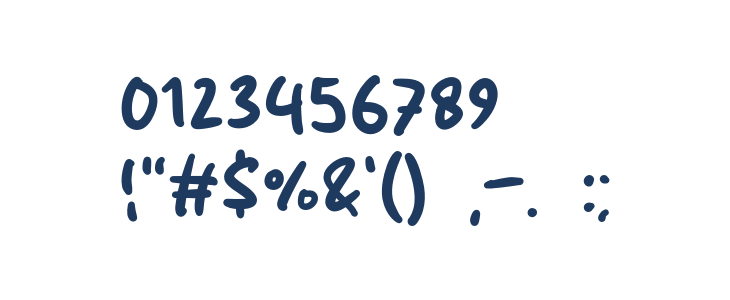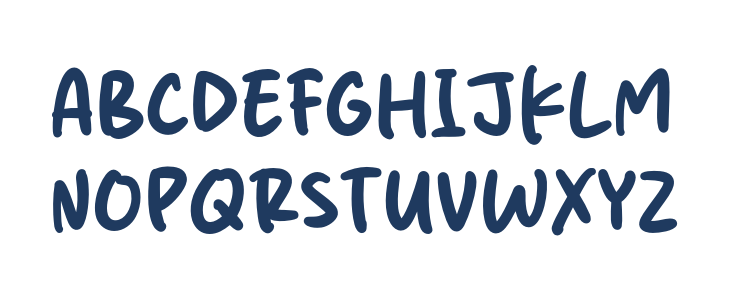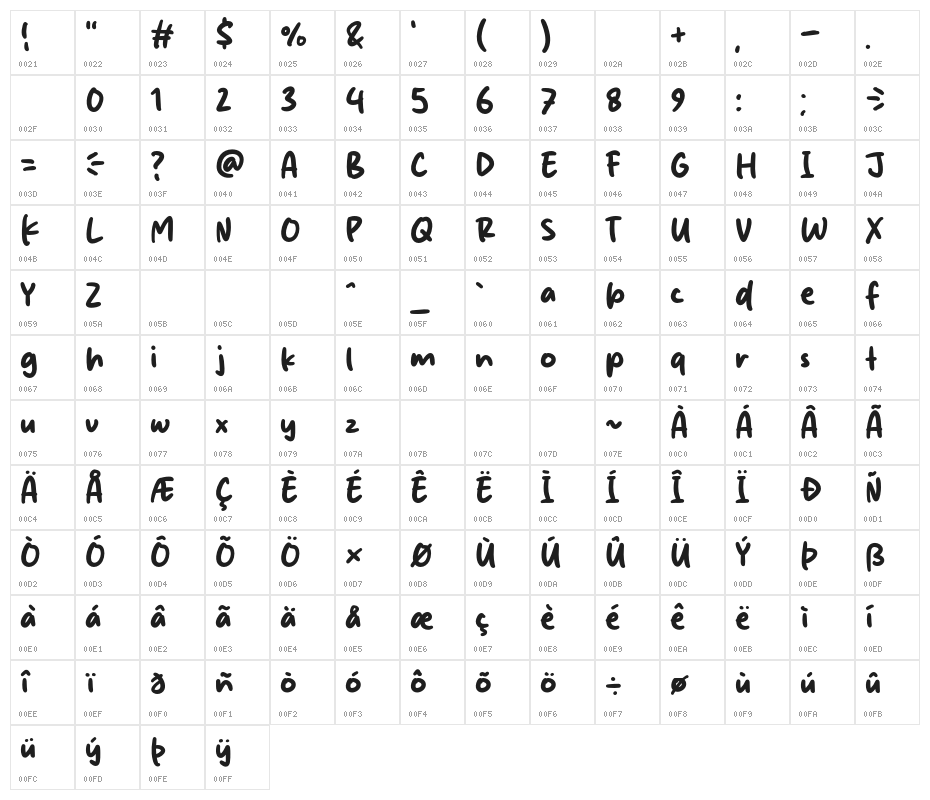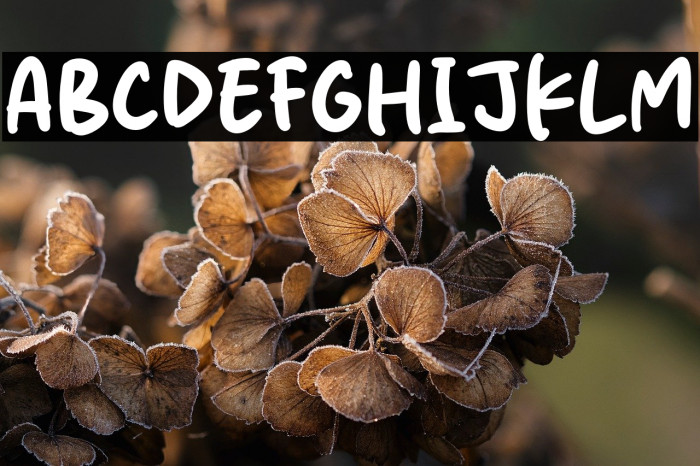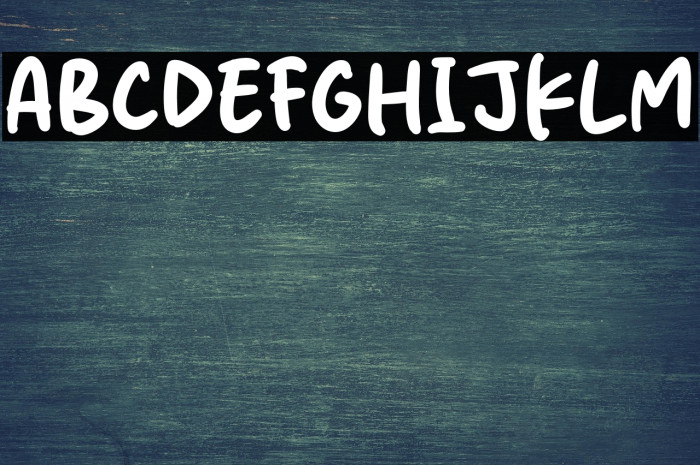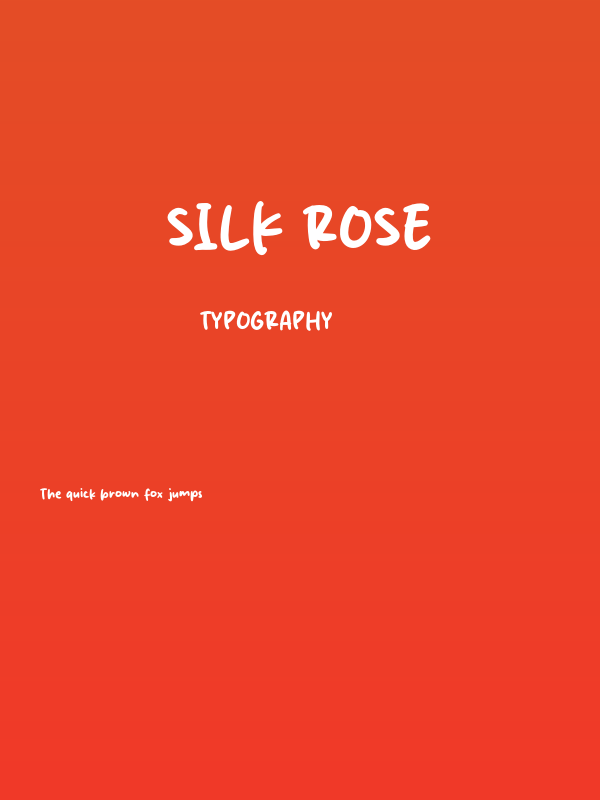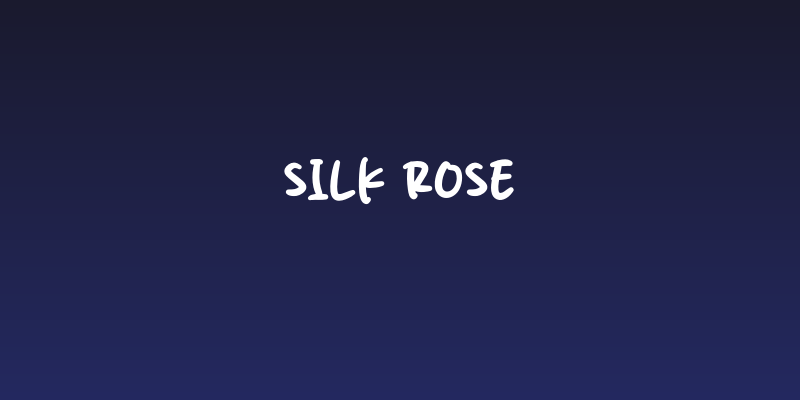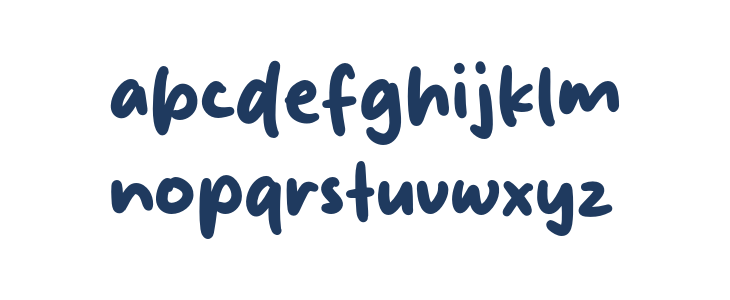
Silk Rose Font
Silk Rose Description
A playful, rounded handwritten typeface with consistent stroke thickness and casual, friendly character shapes. The letters have a natural, informal flow, with slightly varied heights and widths, giving an organic, approachable feel.
| Overall Style | Playful, Casual, Friendly |
| Use Case | Headlines, Short text, Informal branding |
| Proposed Projects | Greeting cards, children's books, posters, social media graphics, informal branding. |